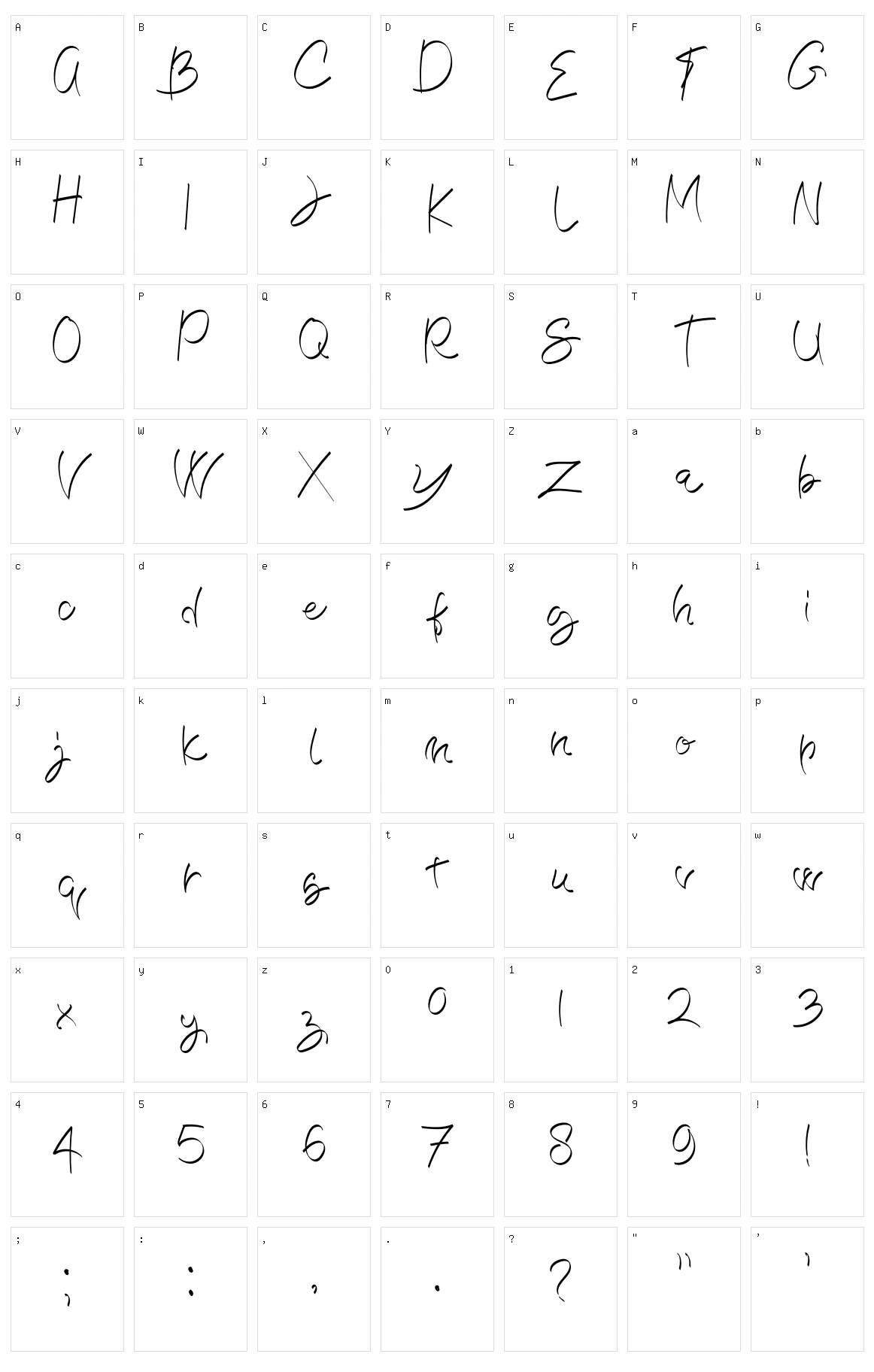
The free font Arially is carefully designed by Arliyan Creative, showcasing a thoughtful balance of creativity and usability and falls under the Script font style. When you download the ZIP file, it contains only 21.77 KB of font files, making it lightweight and quick to download. Please review the license details below to understand permitted usage and distribution rights. If license information is not available, we recommend using this font for personal projects only or contacting the author directly for commercial usage permissions.